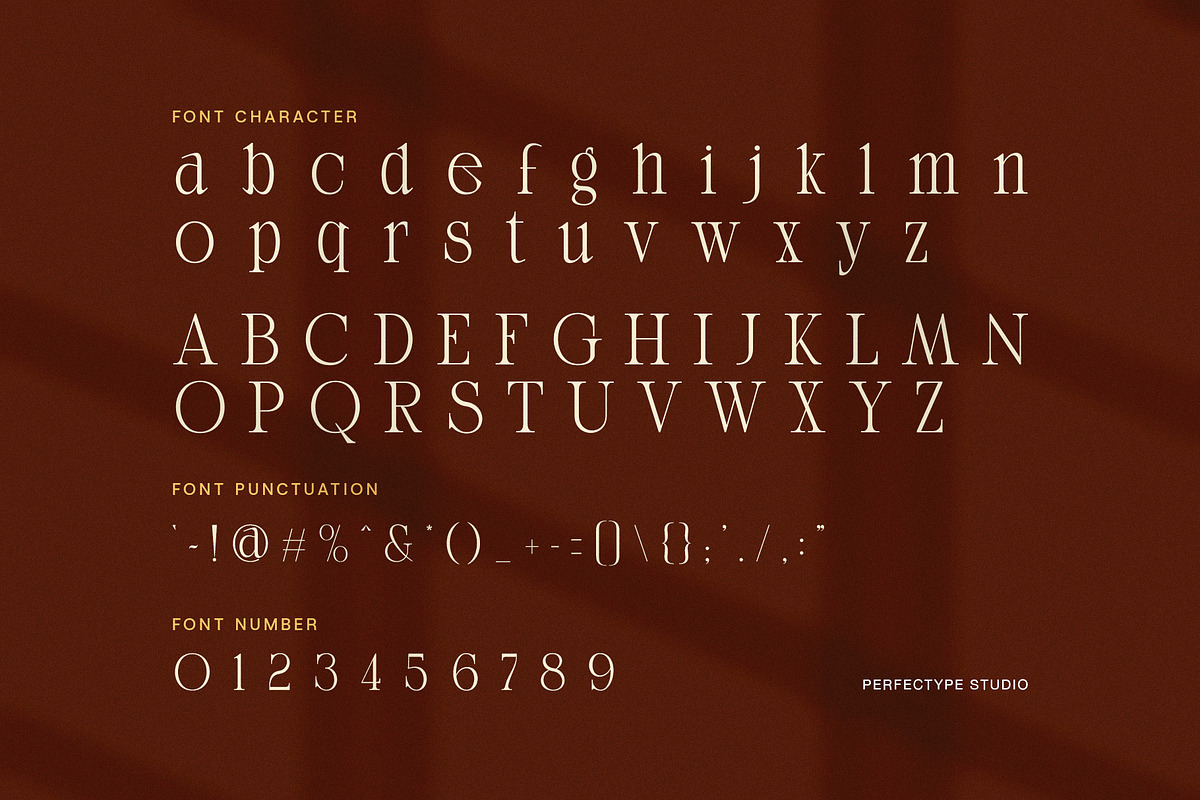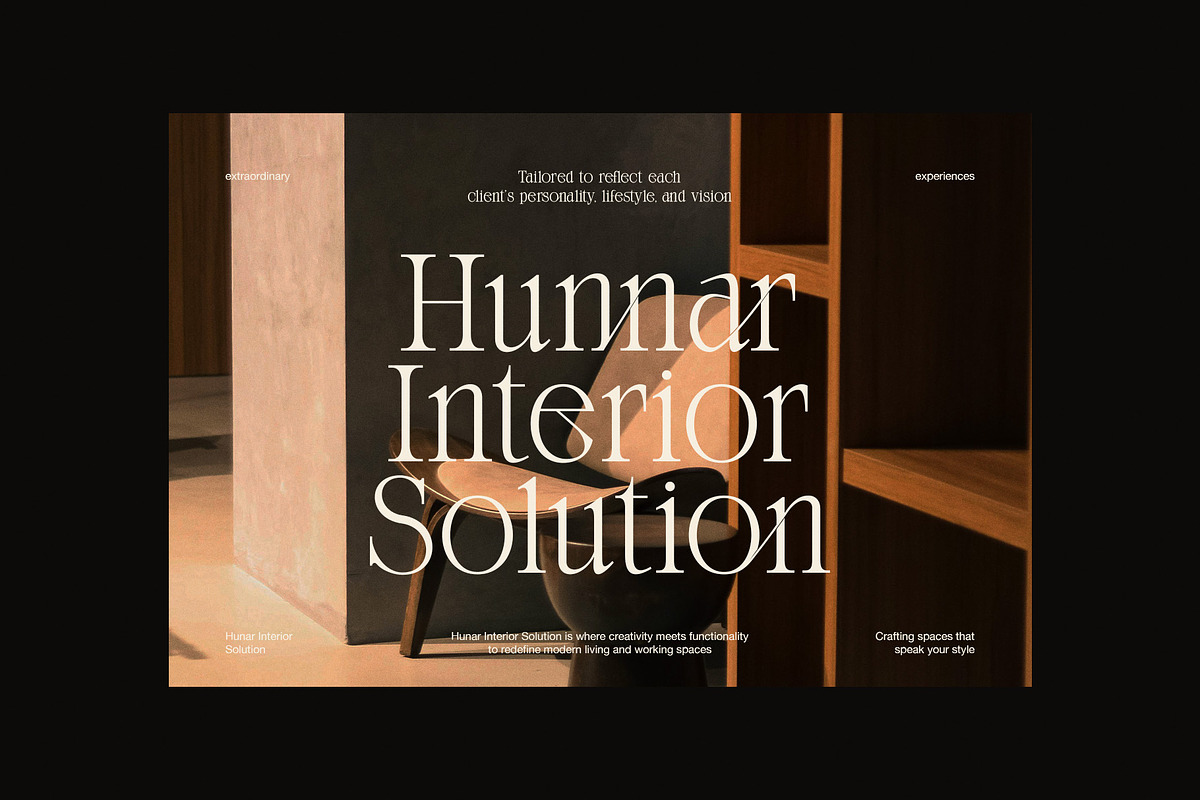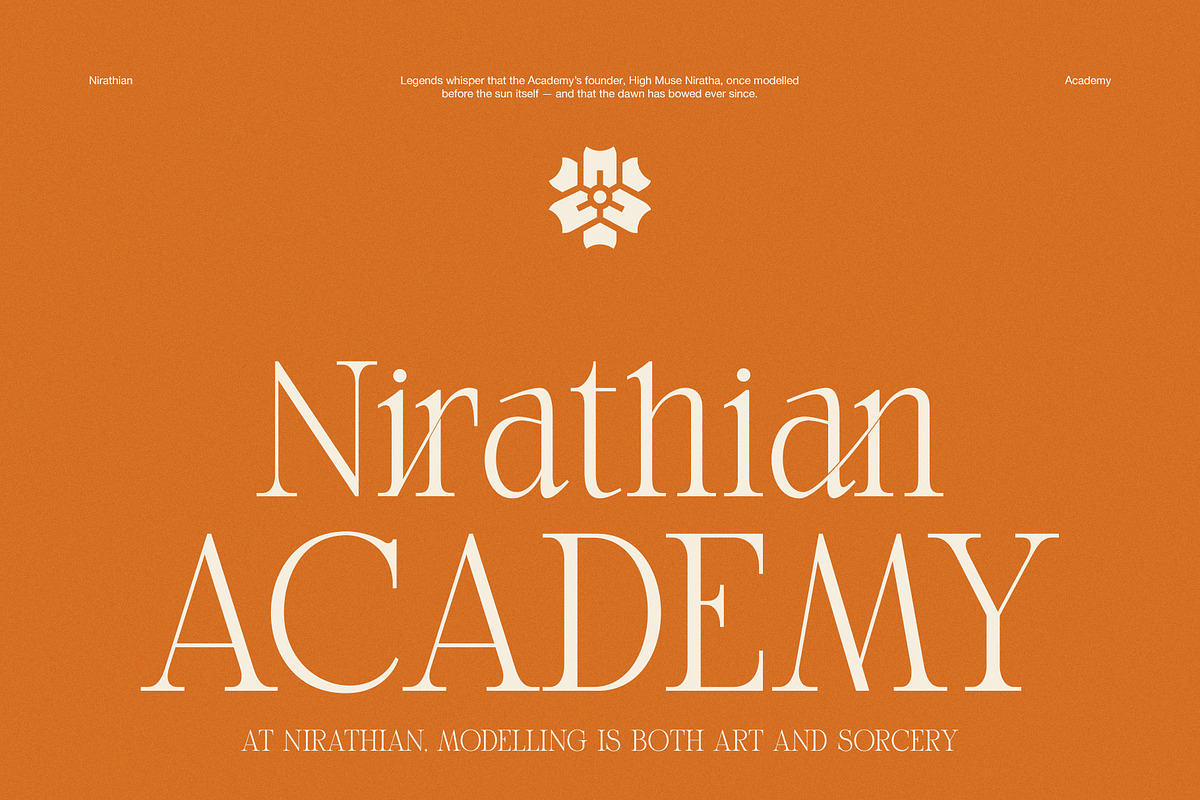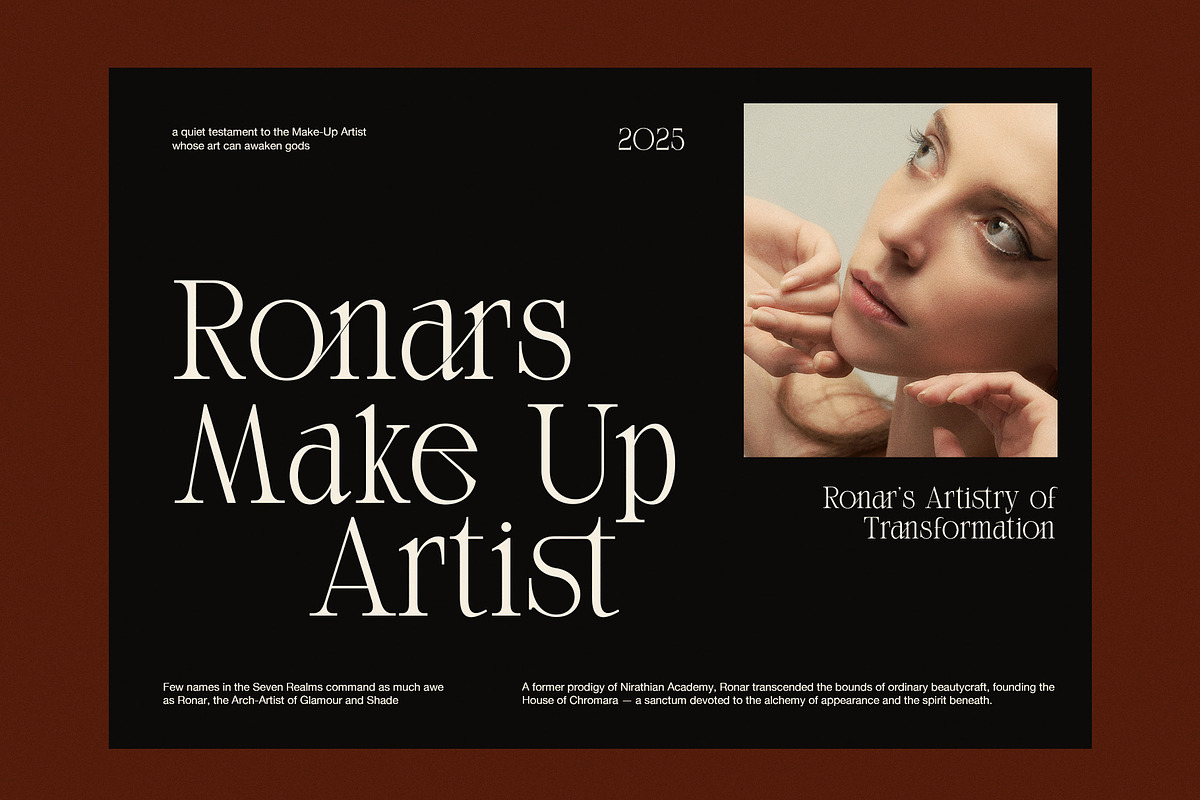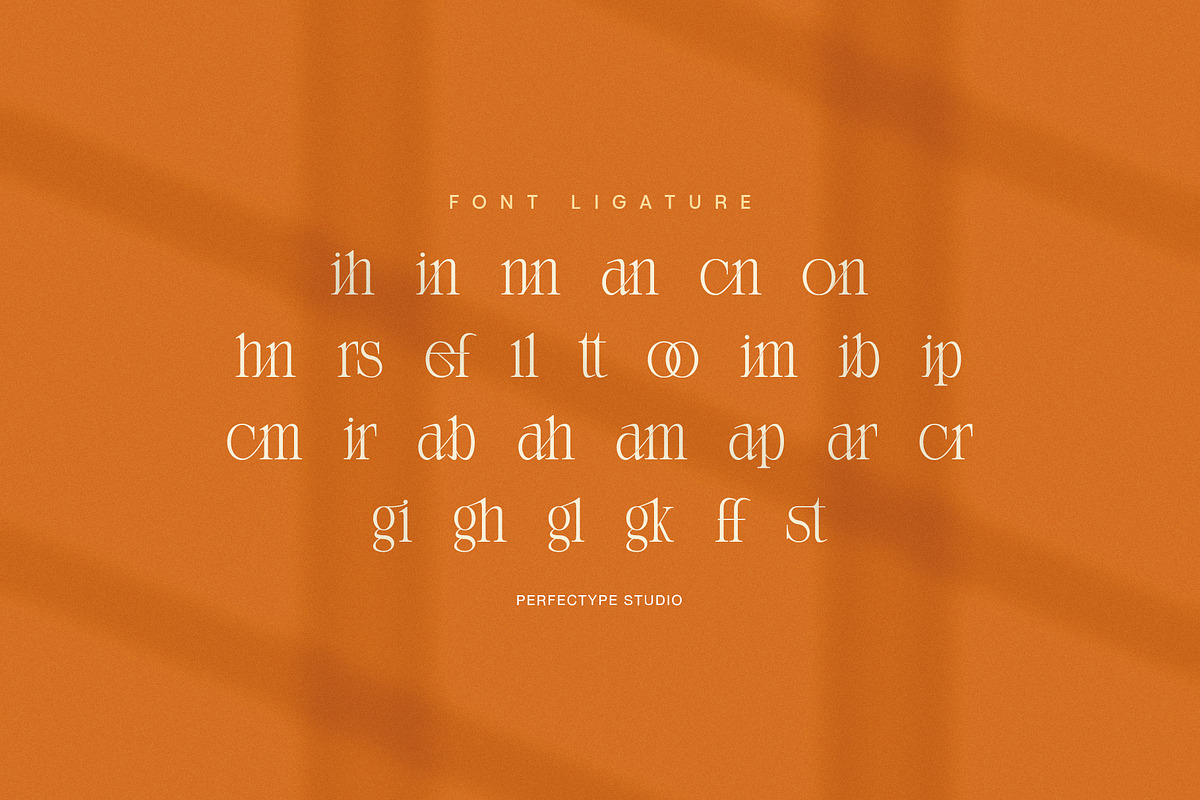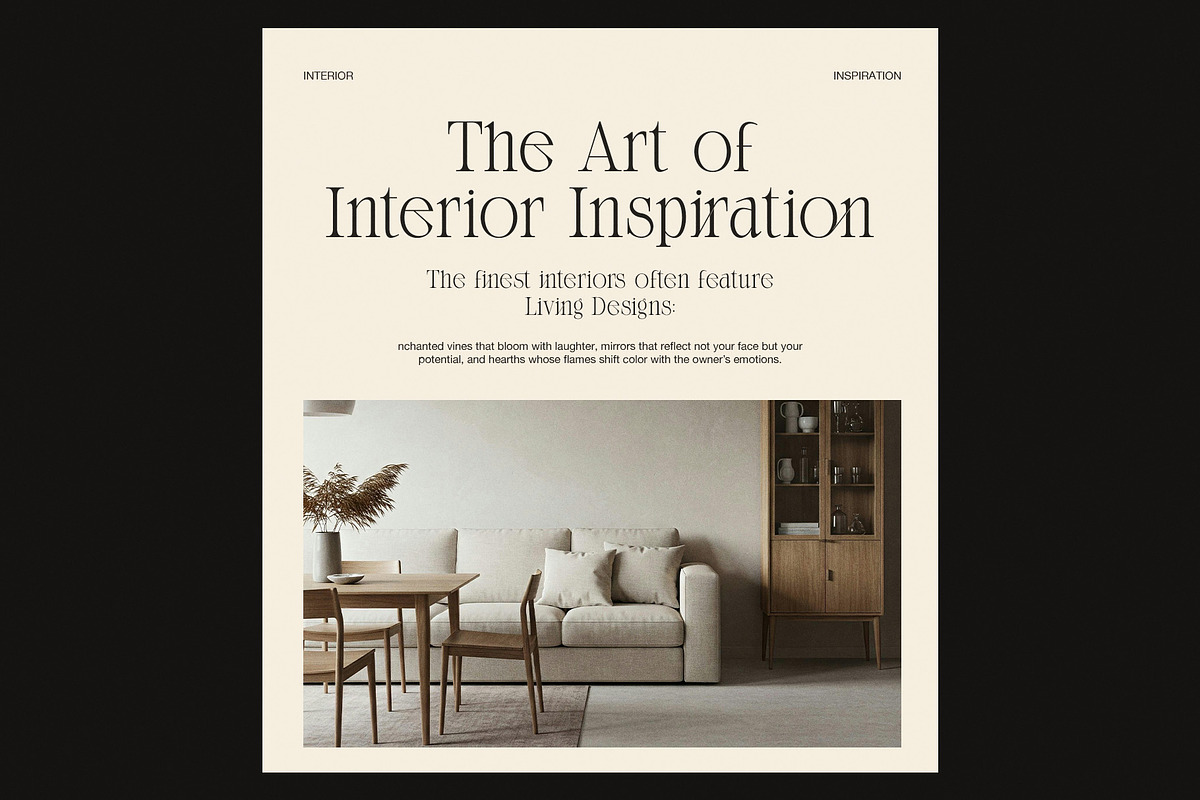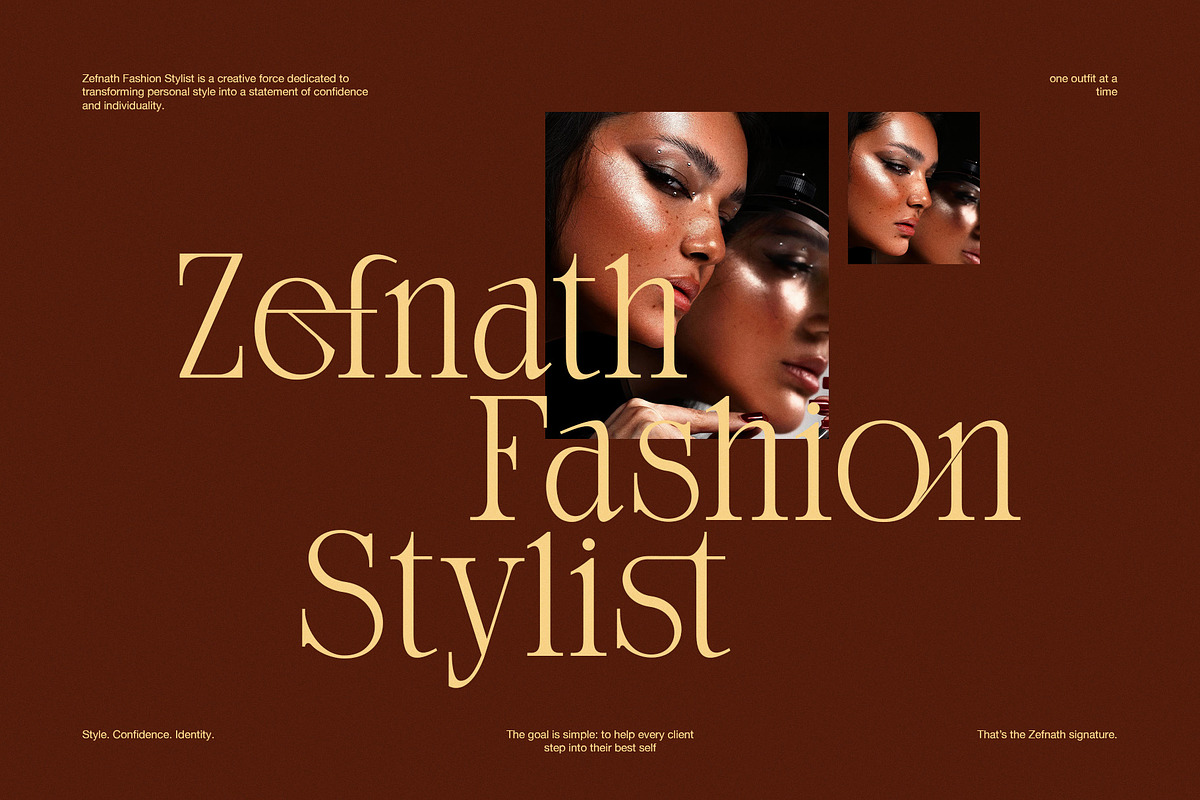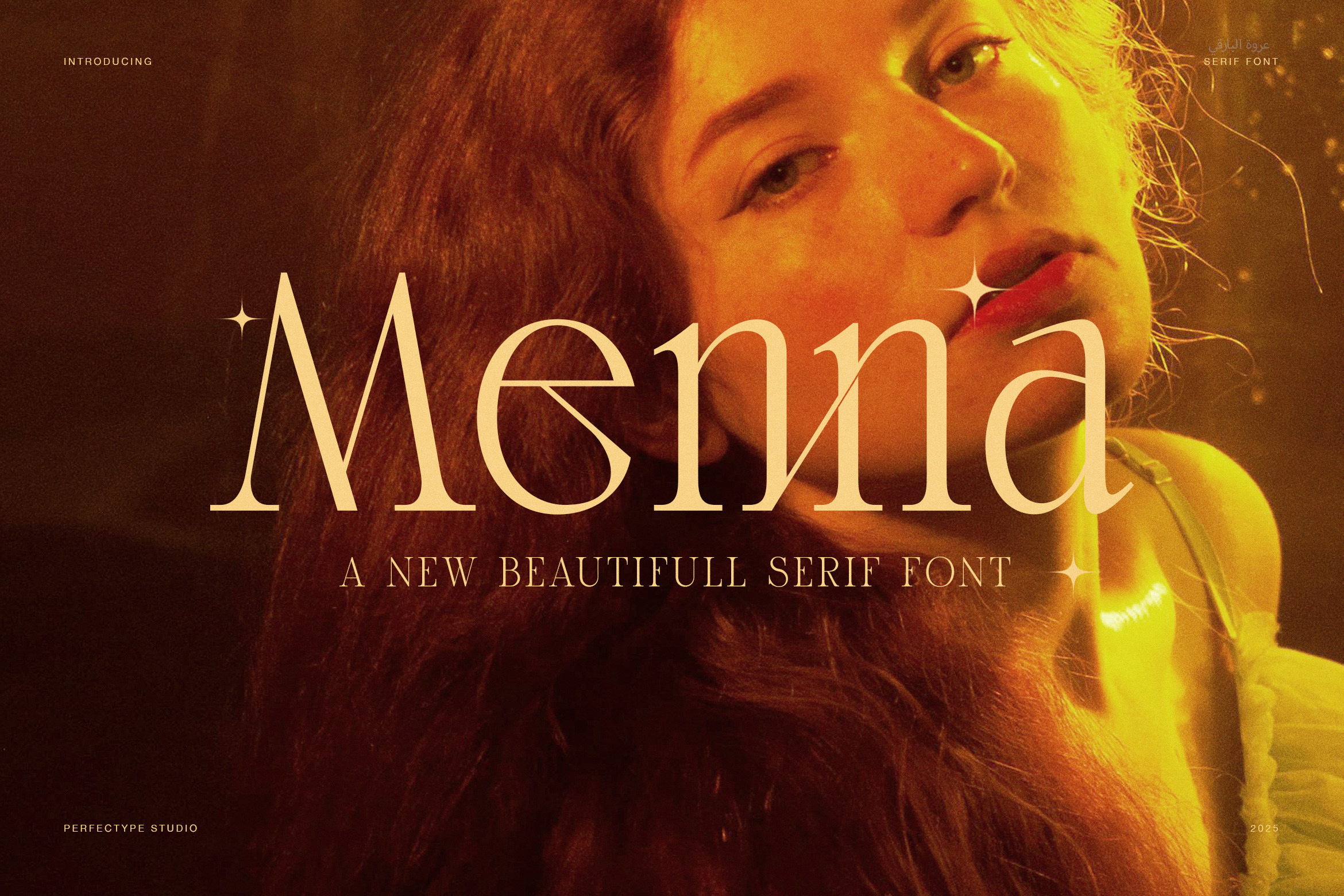
Menna Elegant Modern Serif Font
Menna is an elegant modern serif font designed to capture confidence and warmth in every stroke. Each curve and serif was crafted to balance strength and grace, creating a visual rhythm that feels refined yet approachable. With its contemporary lines and soft contrast, this font blends timeless sophistication with modern beauty.
Moreover, Menna Serif Font works perfectly for luxury branding, fashion editorials, and creative packaging. Its graceful ligatures and unique alternates allow designers to express personality while maintaining readability. Whether you use it for logos, magazines, or websites, every letter adds depth and emotion to your design.
Because of its versatility, Menna adapts beautifully to various visual styles:
Luxury Branding – ideal for high-end fashion, beauty, and jewelry.
Editorial Design – perfect for magazine titles and elegant layouts.
Packaging Design – suited for cosmetics, fragrances, and lifestyle goods.
Wedding & Invitations – brings romance and authenticity to special moments.
Web & Social Media – adds charm and balance to headlines and posts.
Each letter flows naturally, forming smooth connections that enhance both structure and storytelling. The font includes uppercase, lowercase, numerals, punctuation, alternates, and stylish ligatures in OTF, TTF, and WOFF formats. Furthermore, it supports multilingual characters, ensuring that creativity crosses every language barrier.
When used in modern branding, Menna communicates trust and elegance. Yet, when applied to lifestyle projects, it feels expressive and full of character. Its design radiates warmth, allowing words to stand out while maintaining visual harmony.
Ultimately, Menna Elegant Modern Serif Font transforms ordinary text into art. Its cinematic presence, timeless curves, and balanced structure make it a perfect choice for designers who value subtle sophistication and clear storytelling.